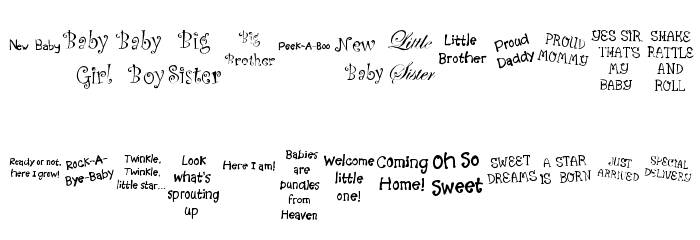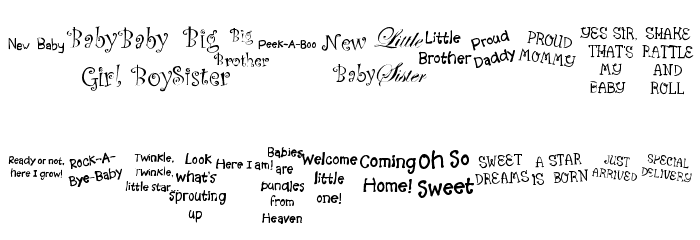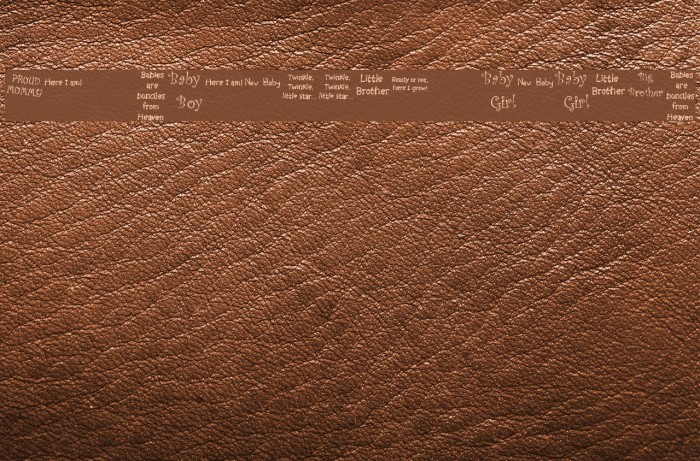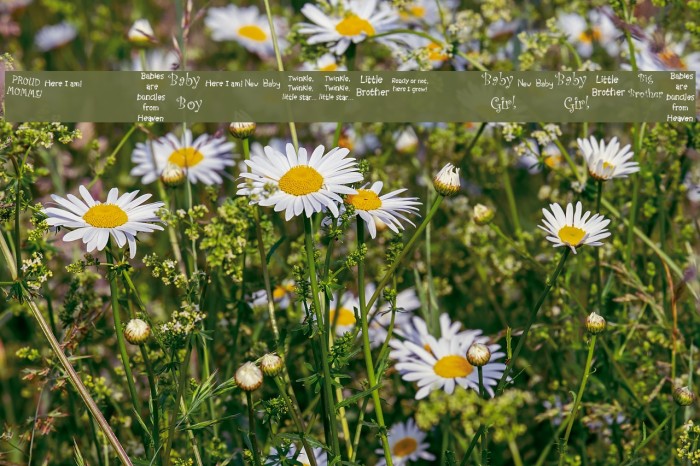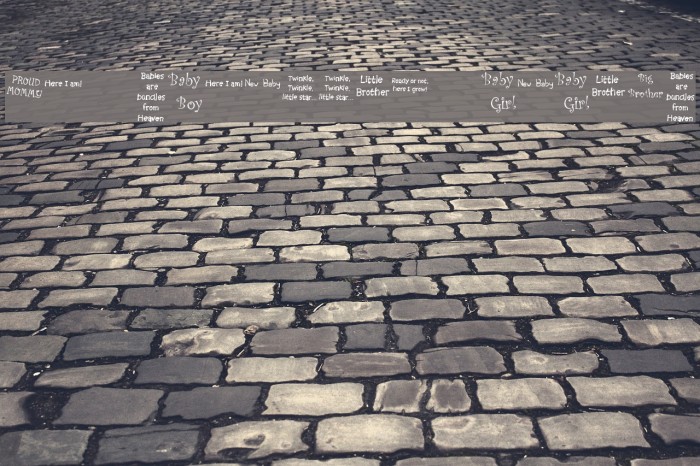
KR Scrappin Babies Font
This playful and whimsical font features a variety of decorative elements that give it a charming and childlike appeal. The letters are creatively styled with curls and swirls, adding a sense of fun and imagination. The font includes a mix of uppercase and lowercase letters, each with unique embellishments that make it stand out. It is perfect for projects that aim to capture a youthful and joyful spirit, such as children's books, nursery decor, or playful invitations. The font's design is both intricate and legible, making it suitable for a range of creative applications.
A whimsical and decorative font with playful curls and swirls, perfect for children's themes.
- Proposed Projects: Ideal for children's books, nursery decor, playful invitations, and any project needing a youthful touch.
- Overall Style: Playful, Whimsical
- Use Case: Headlines, Decorative text, Children's themes